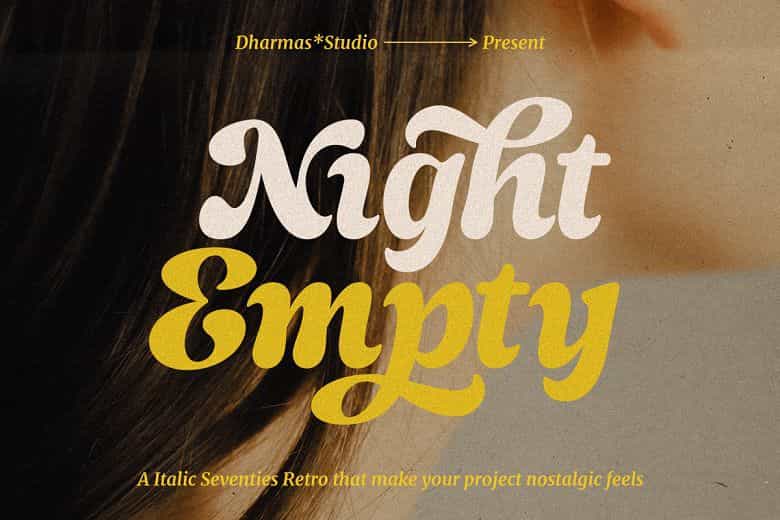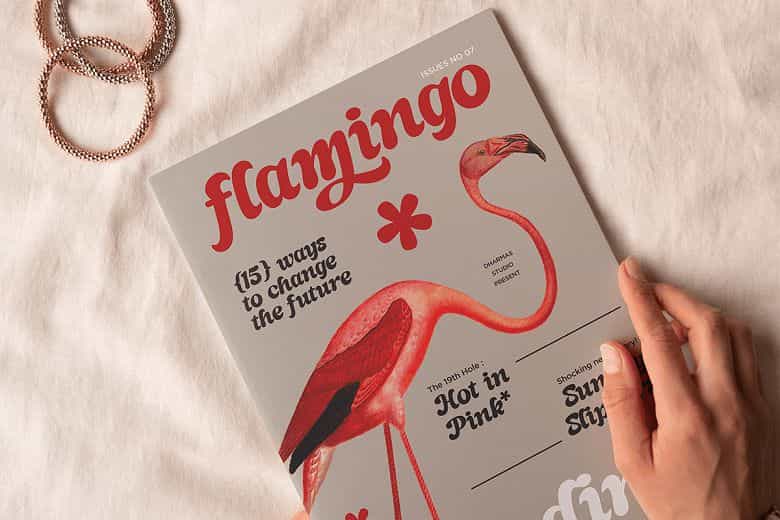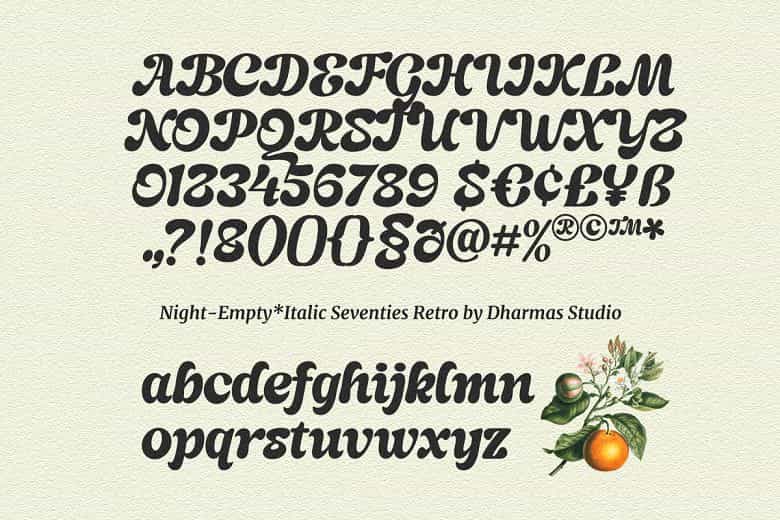
Night Empty – A Italic seventies retro font that has the characteristics of retro and soft bold italic. This font has no sharp edges and all its lines are well and neatly curved to give your project that nostalgic feel. This font will give your project that old school, classy and neat look that you need.